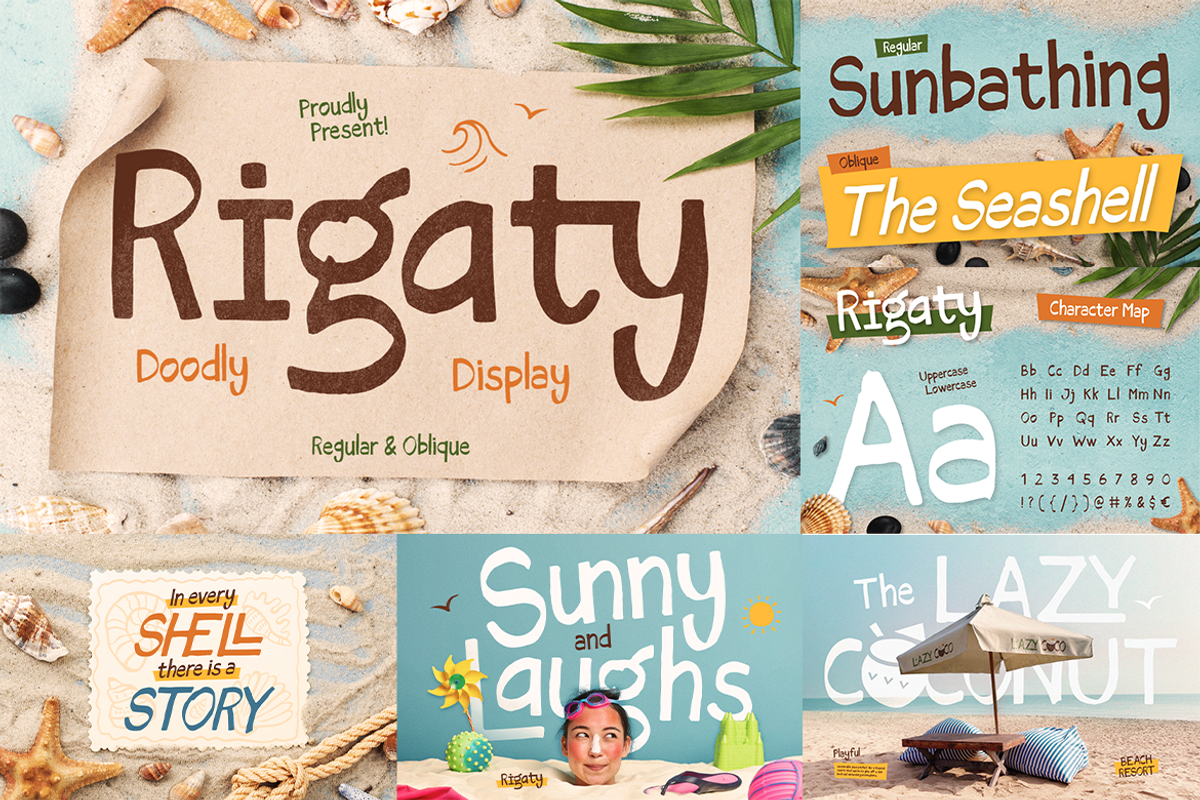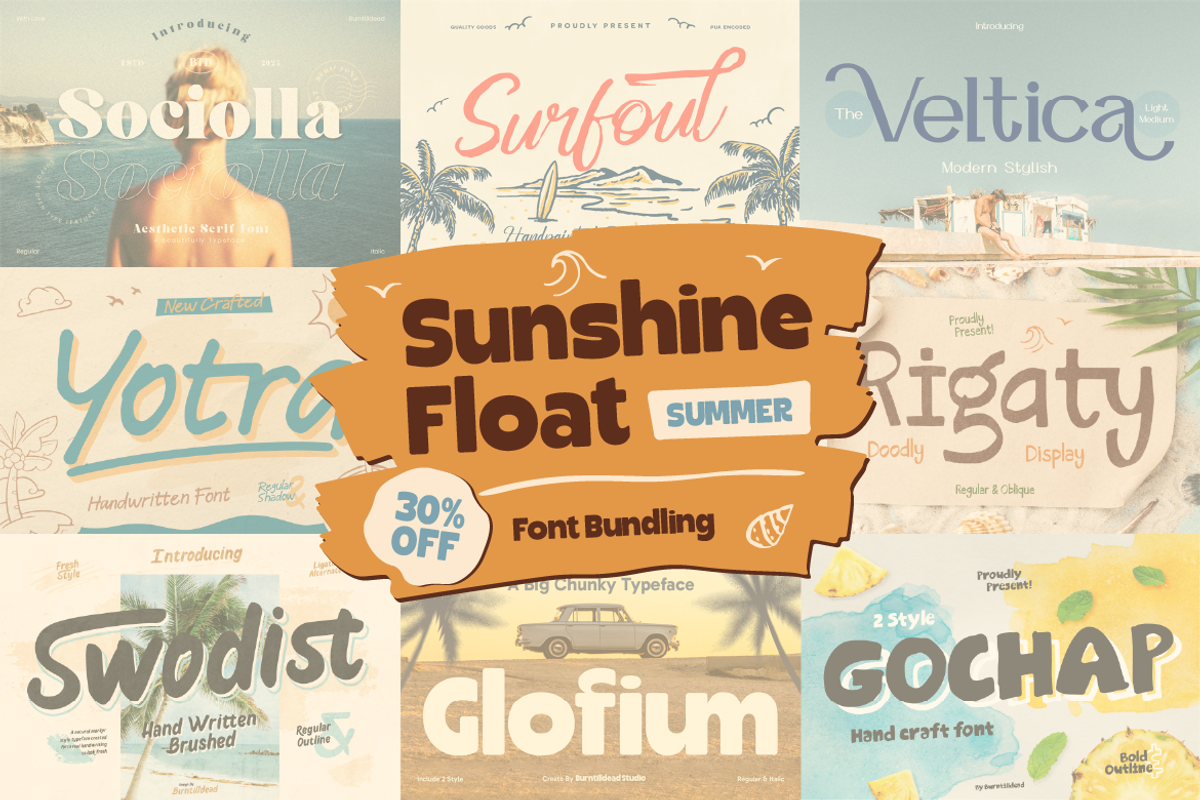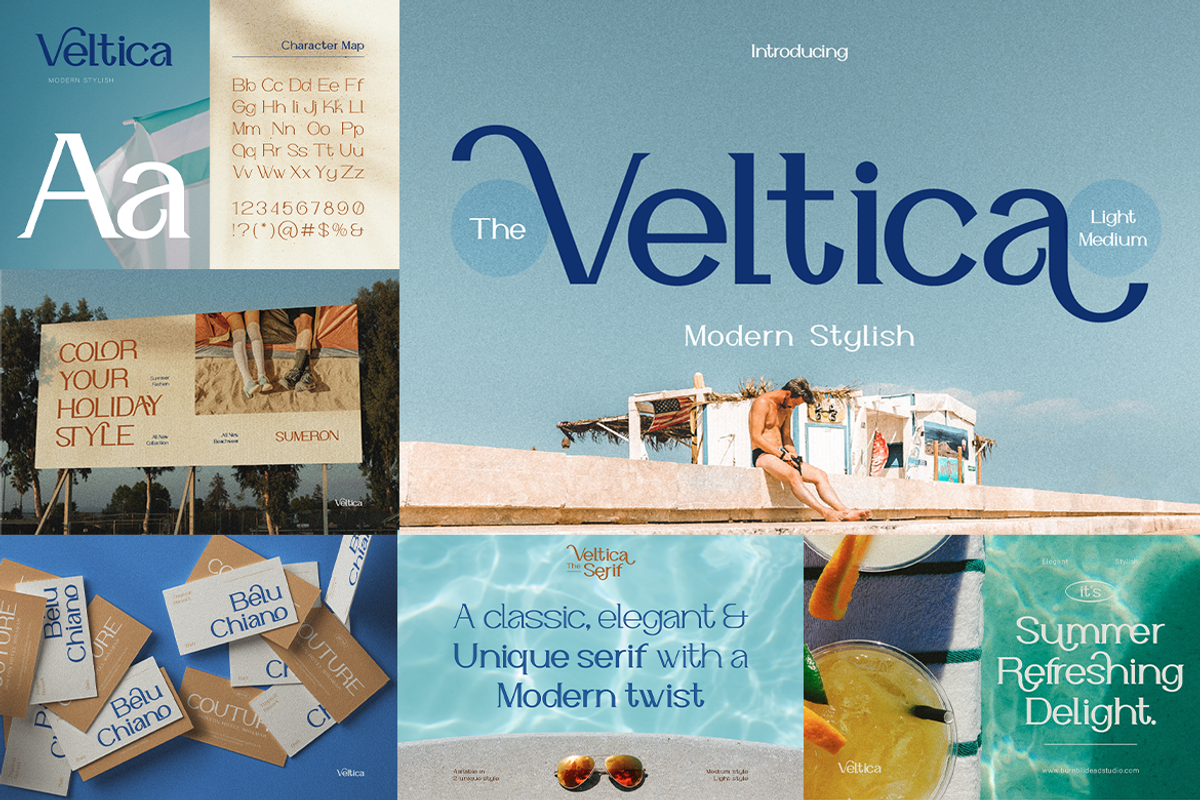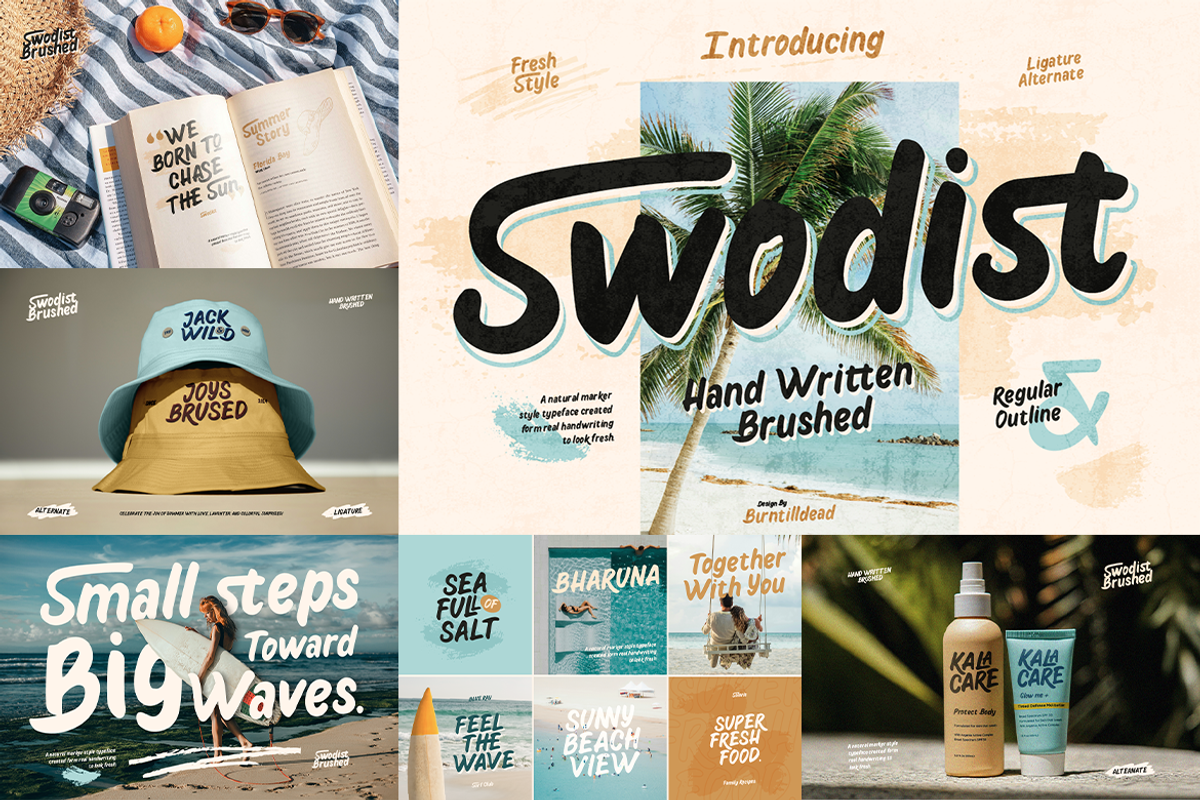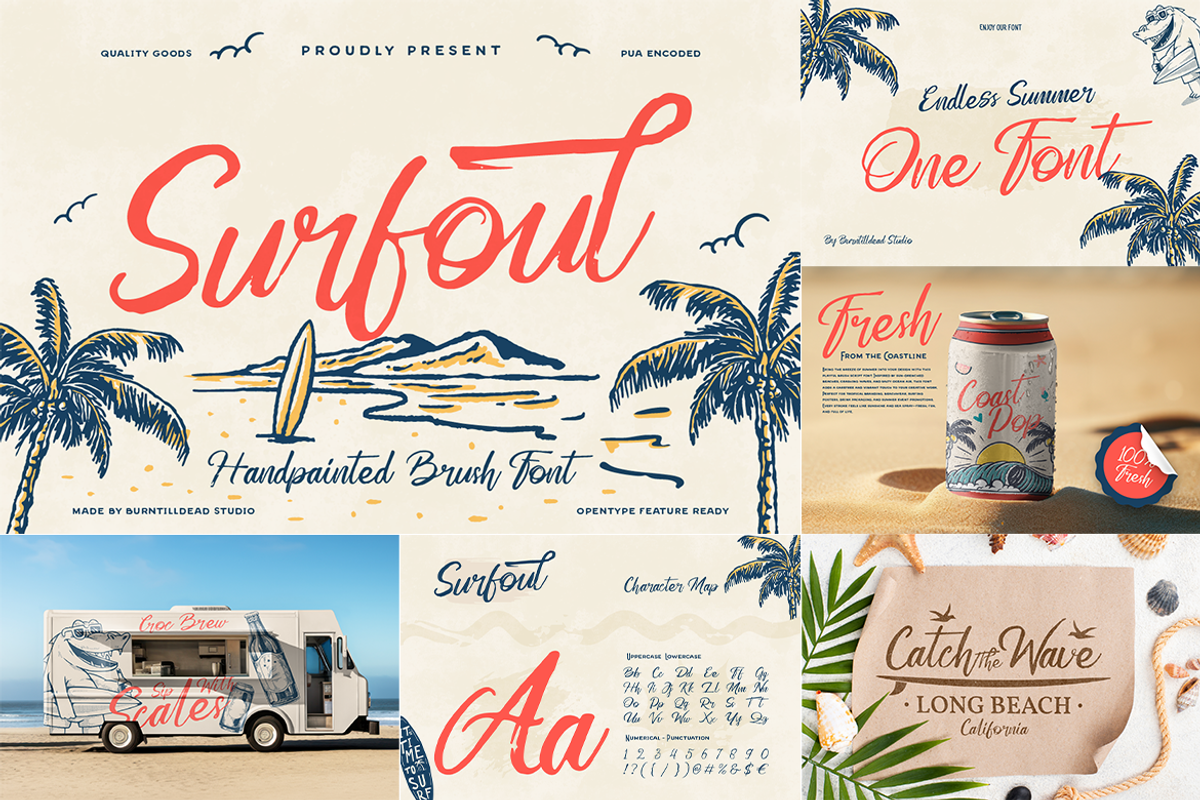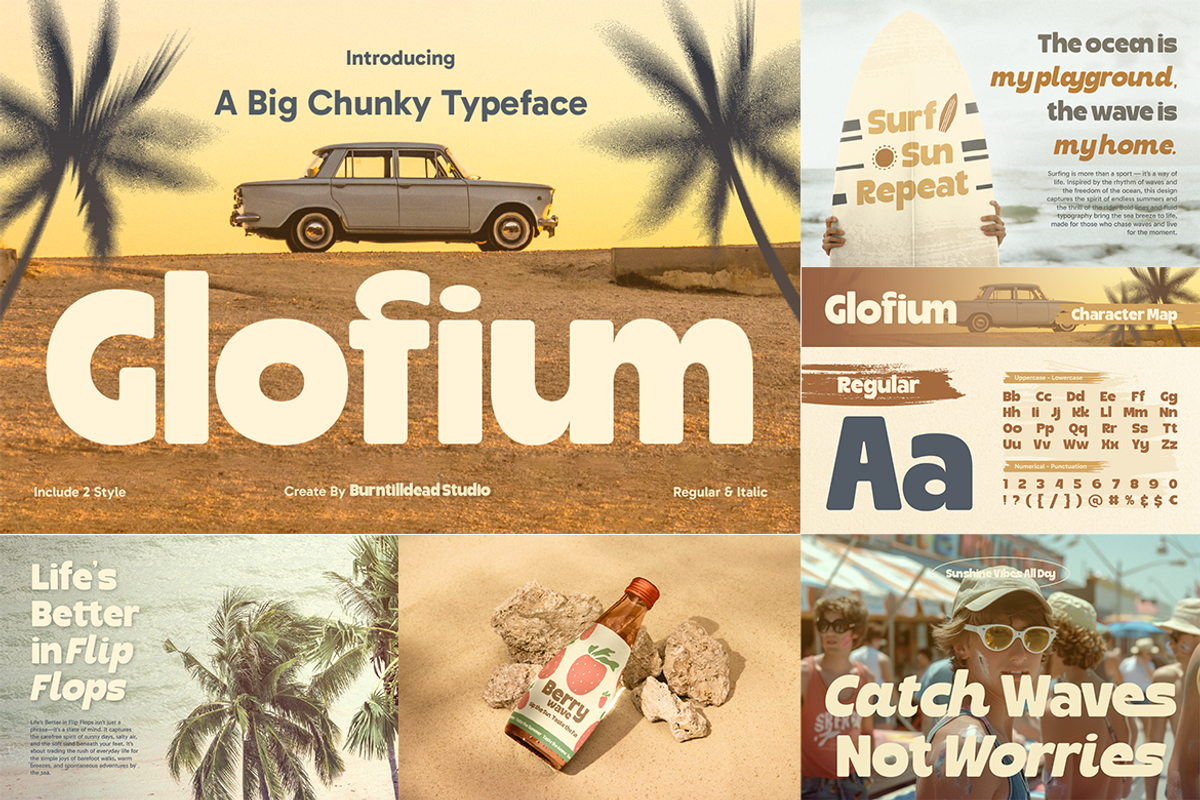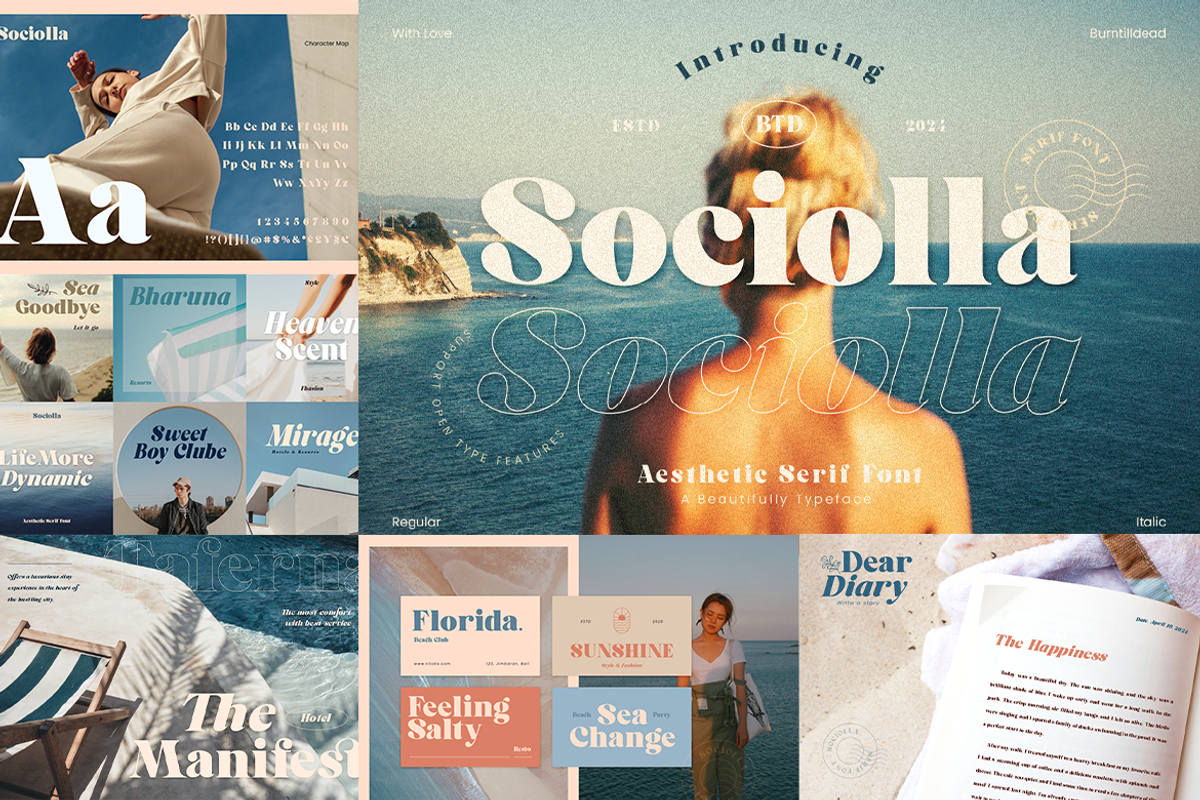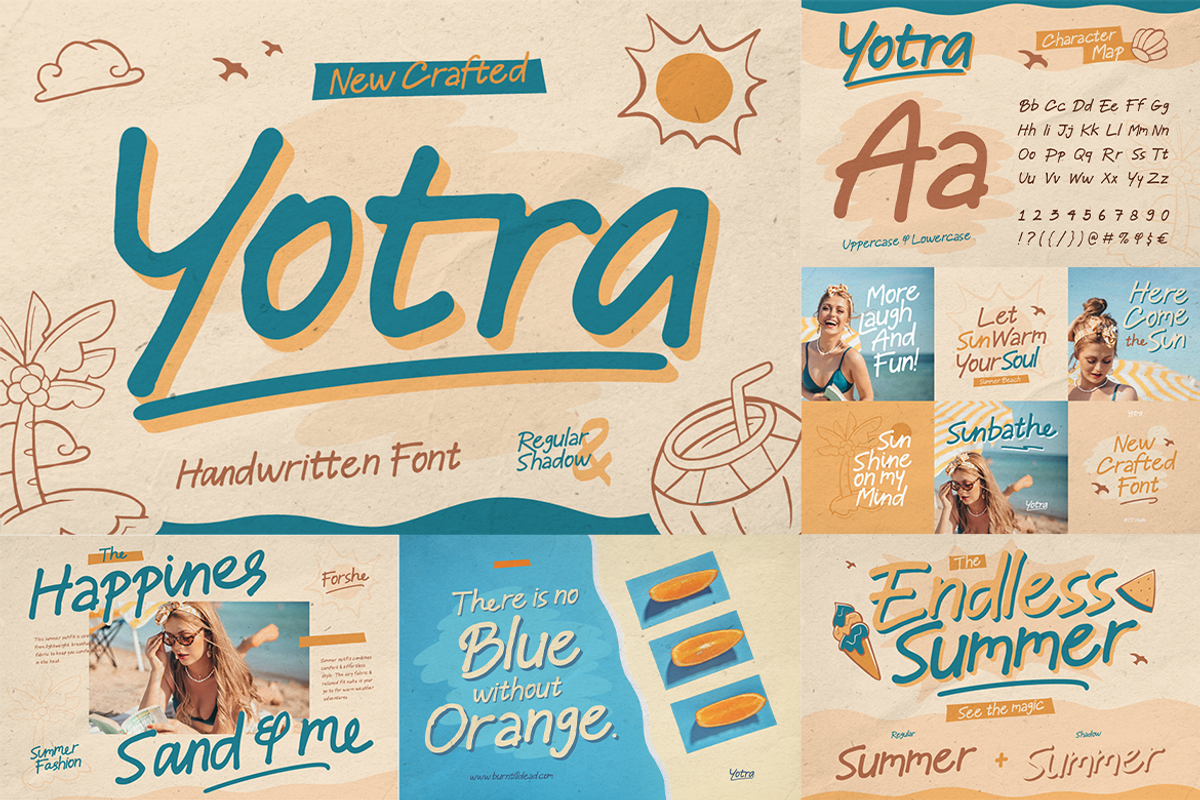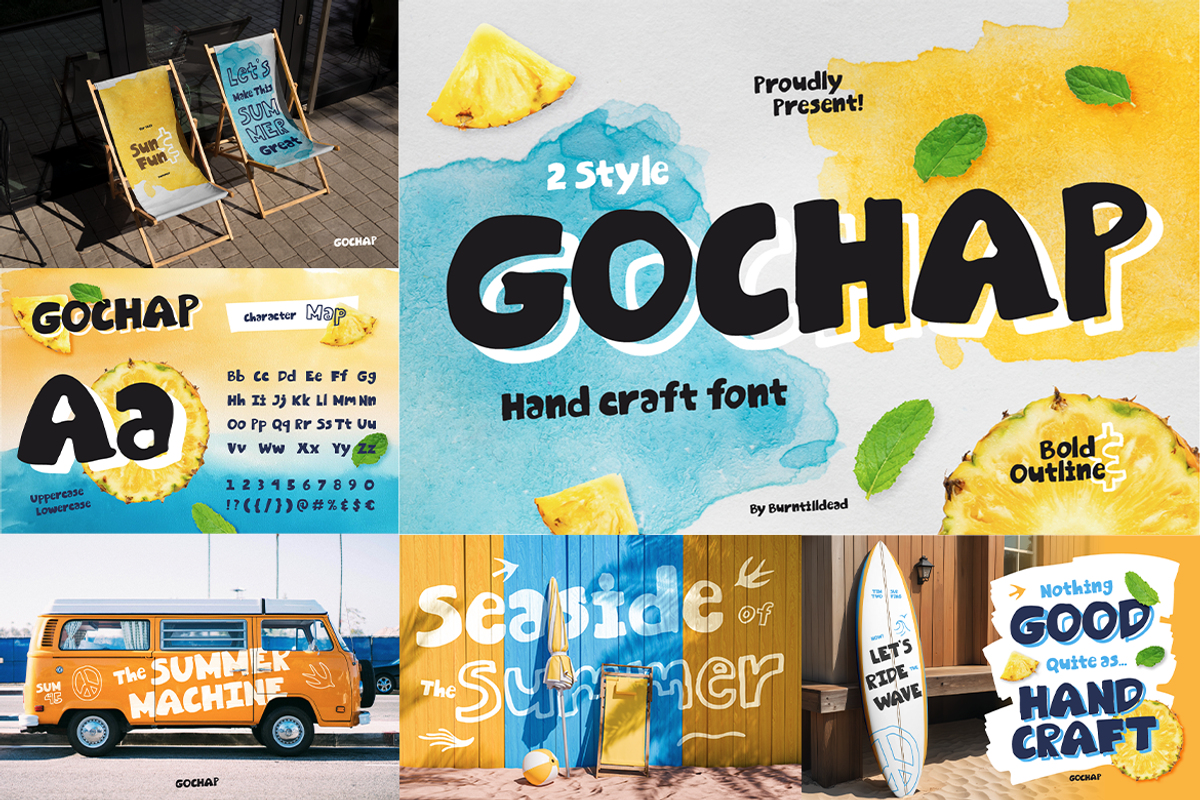
Get ready to brighten up your design with Sunshine Float, a delightful bundle of 8 fun and cool fonts. You will find a playful mix of handwritten, brush and sans serif. These fonts are fresh from the oven and ready to make a splash! You’ll get:
- Yotra - Handwritten font (Regular, Shadow, Graphic and Graphic Shadow)
- Glofium - A Big Chunky Typeface (Regular & Italic)
- Surfoul - Handpainted Brush Font
- Rigaty - Doodly Display (Regular & Oblique)
- Gochap - Handcraft Font (Bold & Outline)
- Swodist - Handwritten Brush (Regular & Outline)
- Veltica - Modern Stylish (Light & medium)
- Sociolla - Asthetic Serif Font (Regular & Italic)